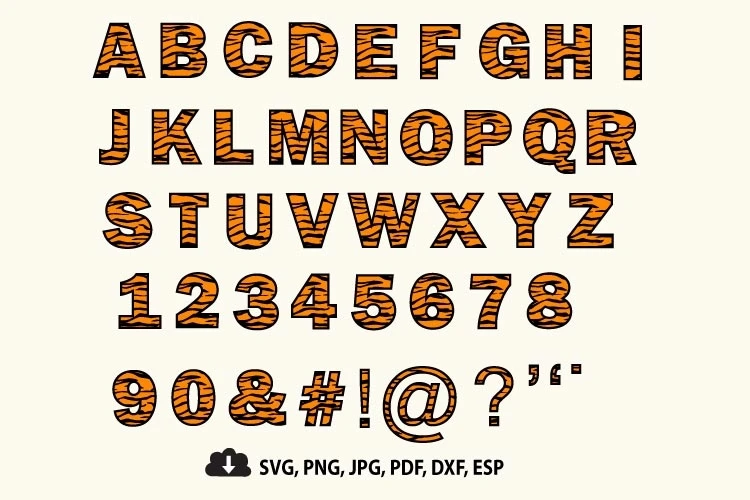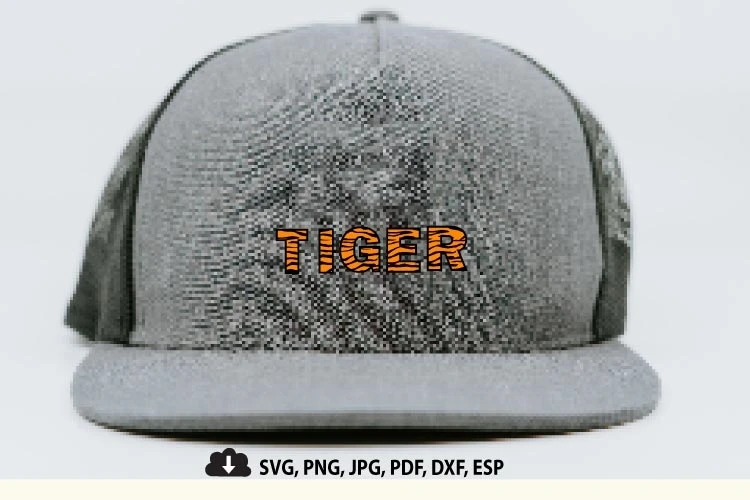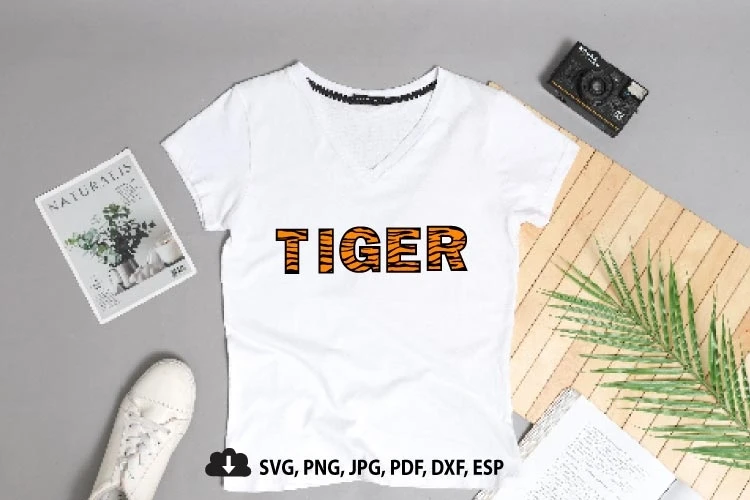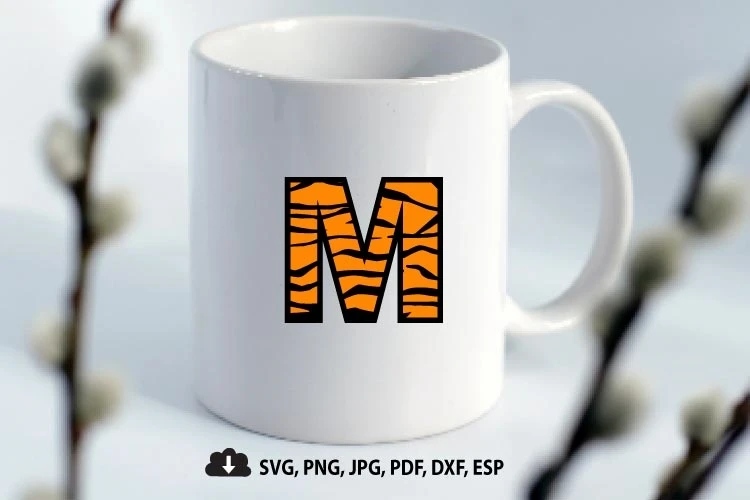
Tiger Font Svg Animal Letters and Numbers Svg Skin Patterned Alphabet Clipart Tiger Skin Font Animal Alphabet Svg Cut file Cricut svg
This file is perfect for personalized T-shirts, mugs, cards, apparel, cups, stickers and other DIY projects. High quality for best result and easy use!